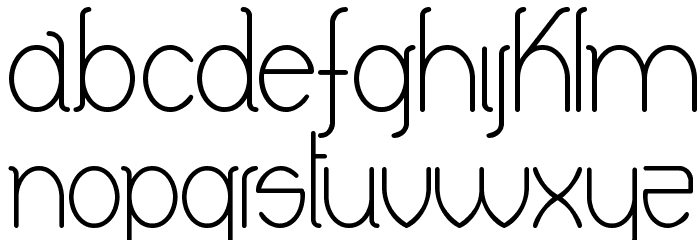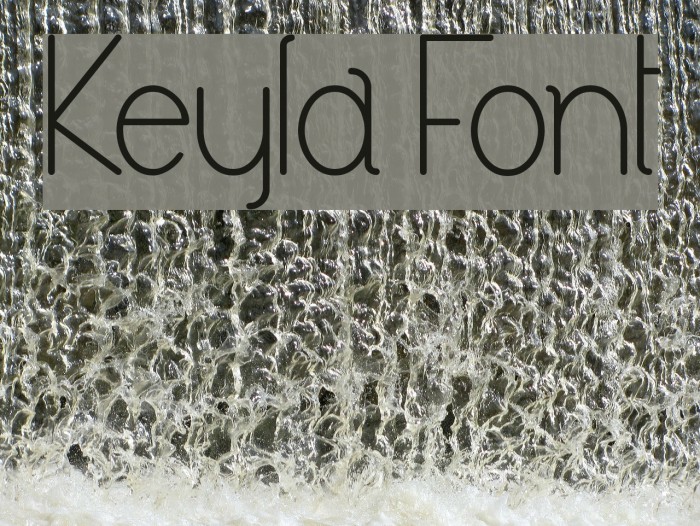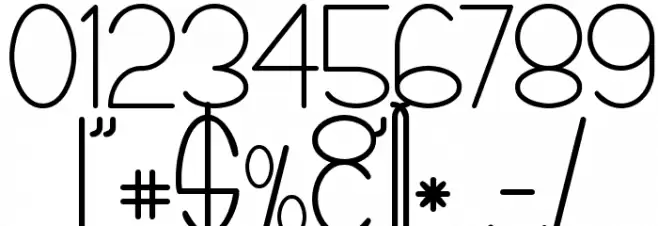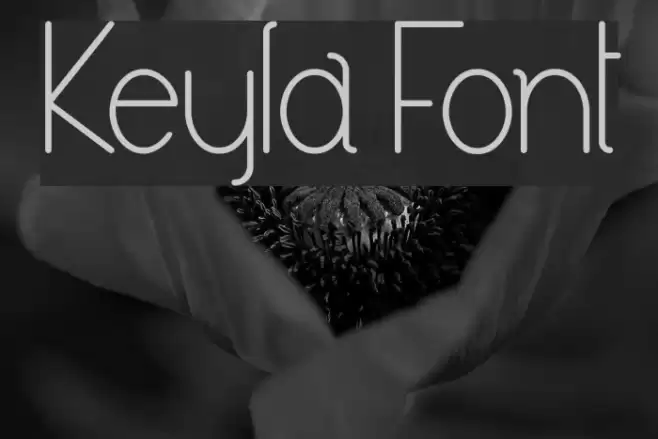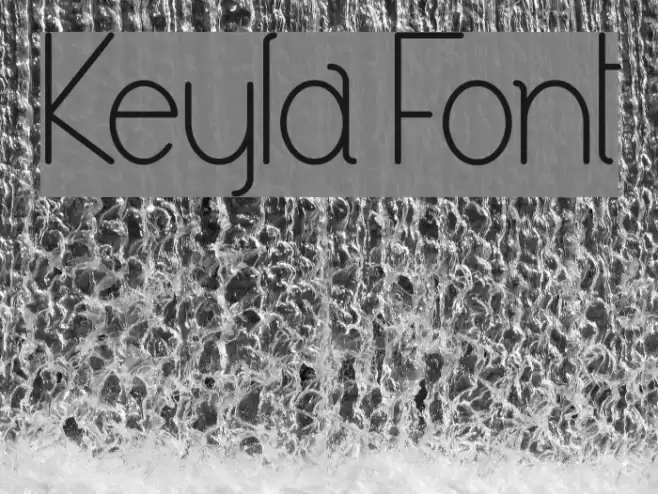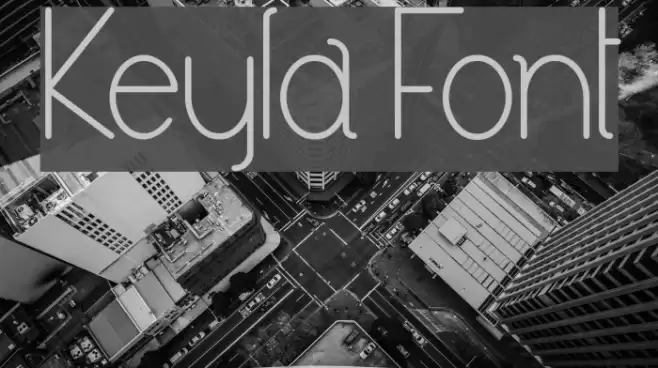
Keyla Font
This font features a sleek, modern design with a geometric structure. The characters are composed of thin, uniform lines that create a clean and minimalist appearance. The uppercase letters are tall and narrow, while the lowercase letters maintain a consistent height, contributing to a harmonious look. The numerals and special characters follow the same design principles, ensuring a cohesive style throughout. The overall aesthetic is contemporary and stylish, making it suitable for a variety of design applications.
A sleek, modern font with geometric, thin lines and a minimalist style.
- Proposed Projects: Ideal for modern branding, editorial design, fashion magazines, and minimalist websites.
- Category: Sans-Serif
- Weight: Light